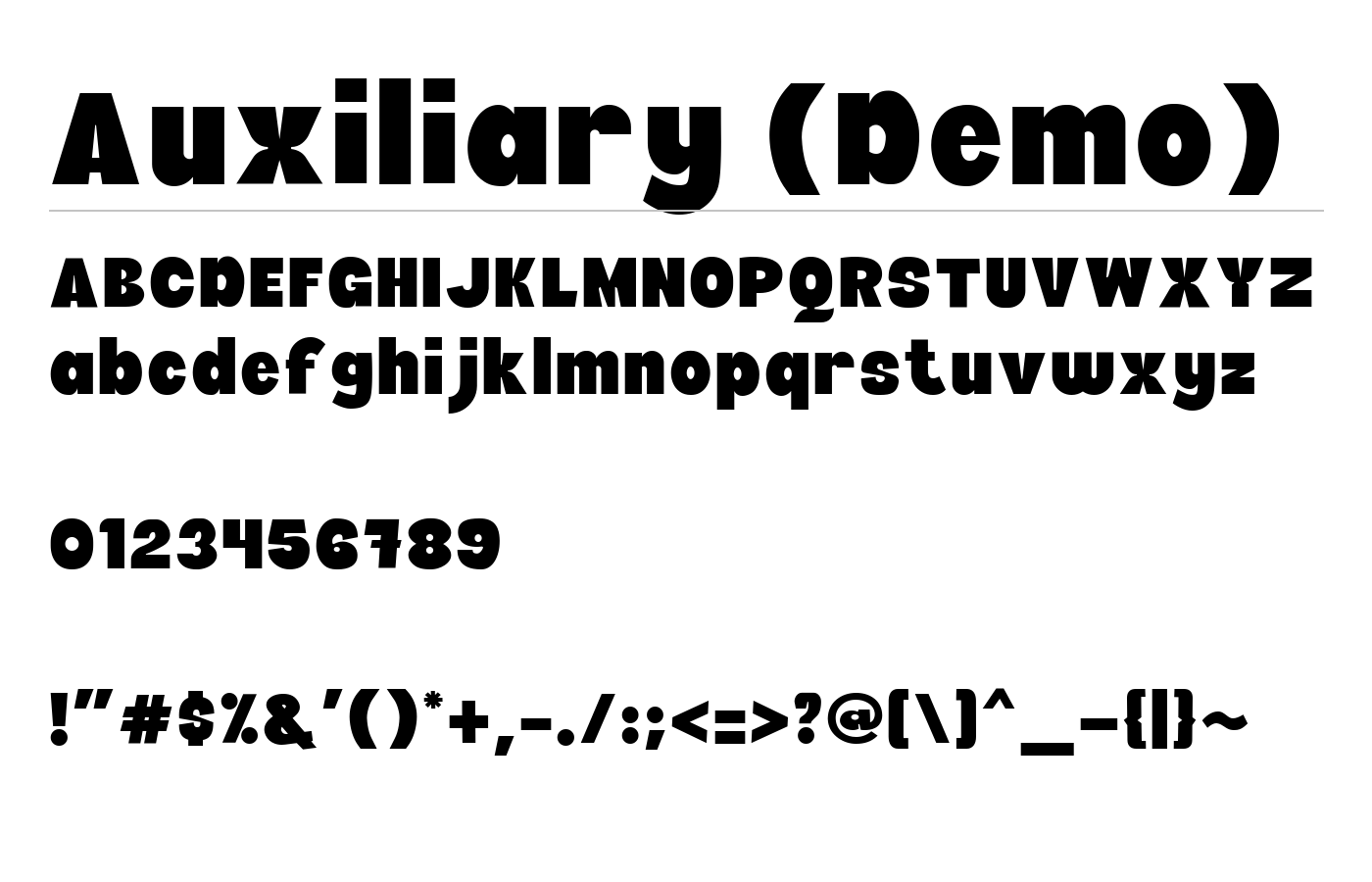
Auxiliary (Demo) is a bold, condensed sans serif font with a playful yet strong presence. Its thick, blocky letterforms and high x-height give it excellent impact for headlines and branding where a confident and approachable style is desired. This font works particularly well for eye-catching logos, posters, or any design needing a modern, sturdy, and fun character.
Auxiliary (Demo) Font